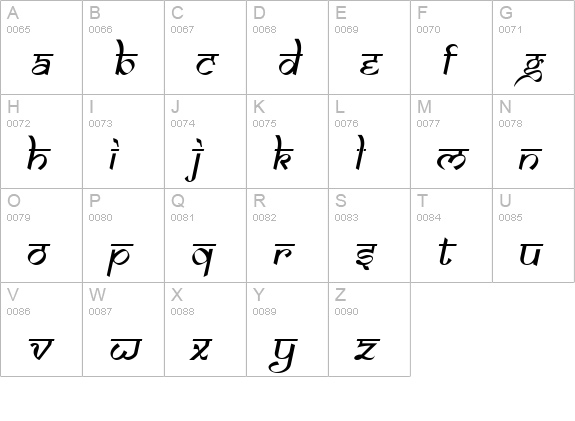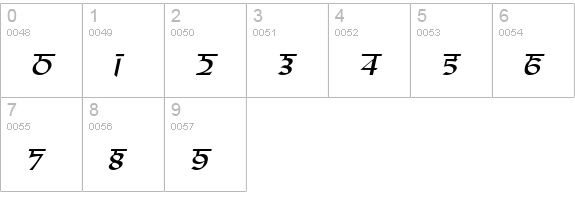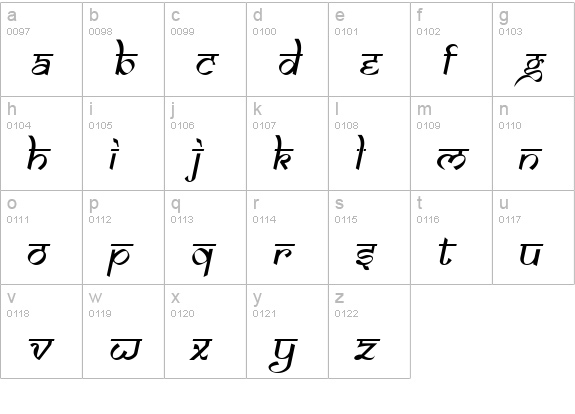
Samarkan Oblique Font Details
Samarkan Oblique is a distinctive, italic variant in the Samarkan typeface family \xE2\x80\x94 well suited to design and typography projects.
Introducing Samarkan Oblique font, a captivating and beautifully crafted typeface that effortlessly blends elegance with a touch of modernity. Its slanted and stylish characters exude a sense of sophistication, making it the perfect choice for adding a touch of uniqueness to any design project. Samarkan Oblique font showcases a harmonious balance between the traditional and contemporary, making it versatile and suitable for a wide range of applications. Whether used for branding, advertising, invitations, or any creative endeavor, this font effortlessly captures attention and leaves a lasting impression. One of the most remarkable features of Samarkan Oblique font is that it is available for free. Yes, you read that right! This exceptional font is freely available to download at FontsMarket.com. Now, you can effortlessly elevate your designs without breaking the bank. The creators of Samarkan Oblique font have meticulously designed each character to ensure legibility and clarity, even in smaller sizes. This attention to detail ensures that your message comes across effortlessly, regardless of whether it's in print or on-screen. With its sleek and slanted design, Samarkan Oblique font adds a touch of dynamism and energy to any project. Its unique personality allows it to stand out from the crowd, making it the perfect choice for those who dare to be different. So, why wait? Download Samarkan Oblique font today from FontsMarket.com and unlock a world of limitless design possibilities. Whether you're a professional designer or a passionate hobbyist, this font will undoubtedly become an invaluable asset in your creative toolkit. Embrace the freedom to create stunning designs with Samarkan Oblique font.